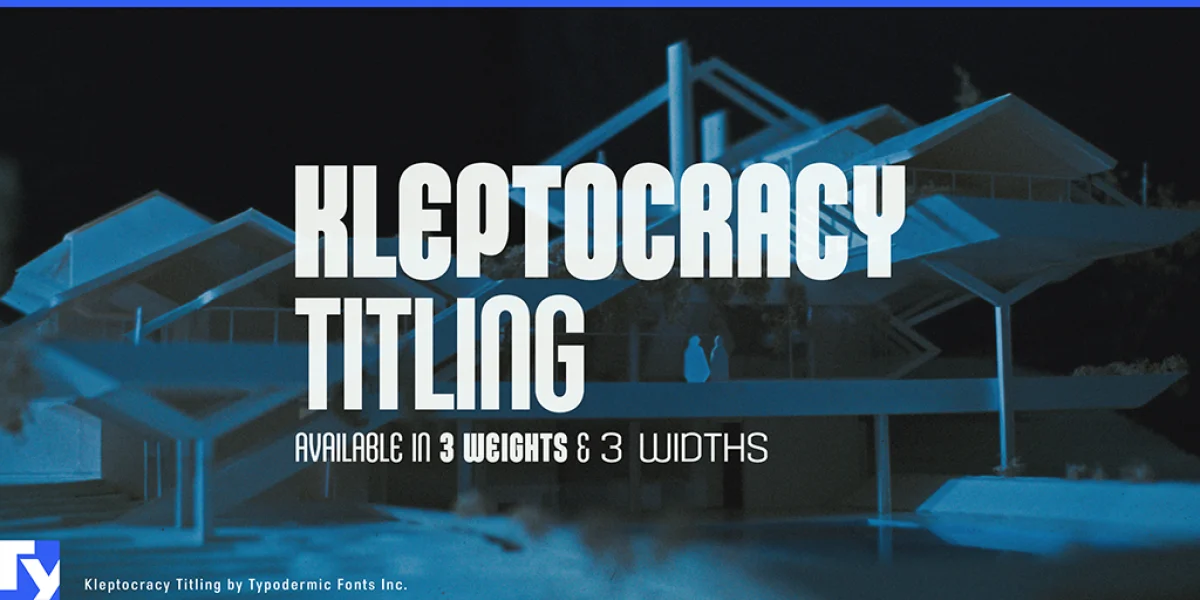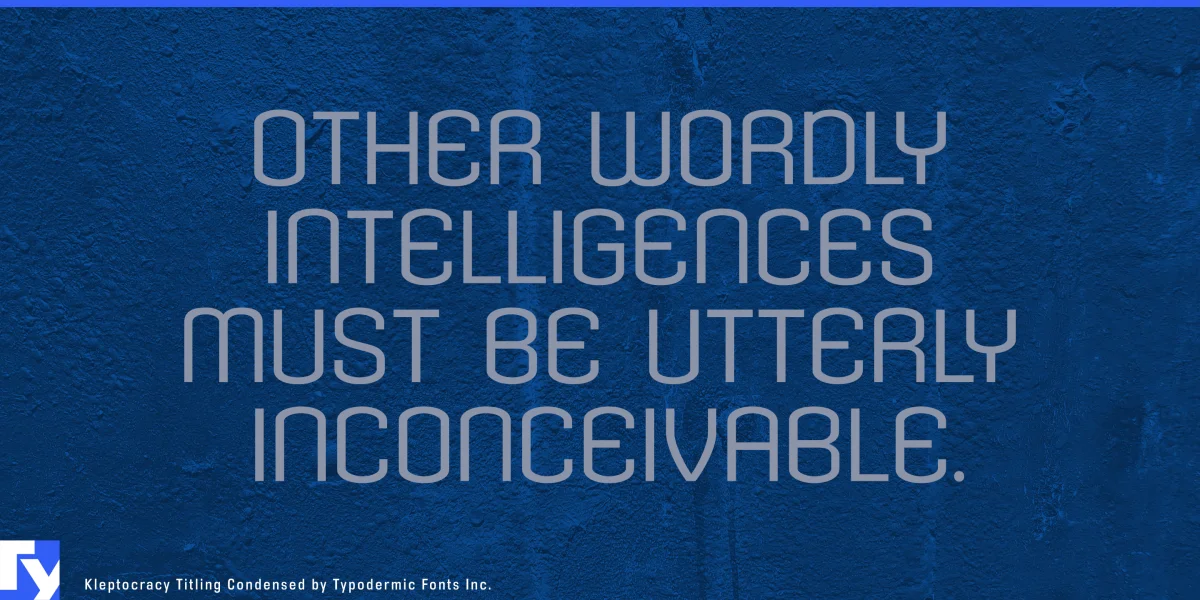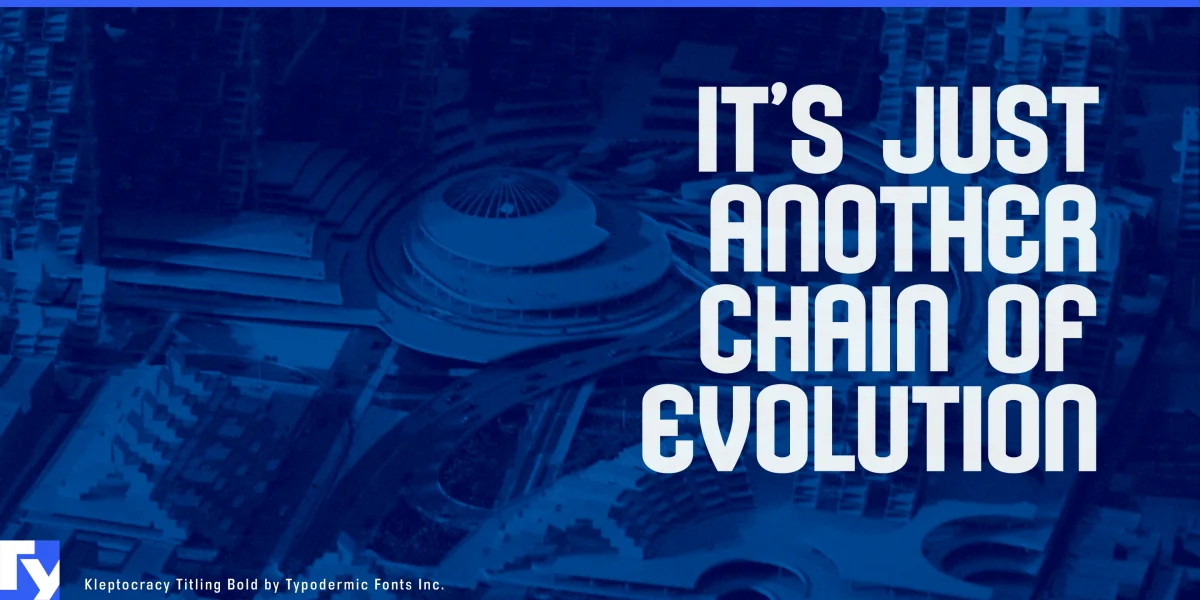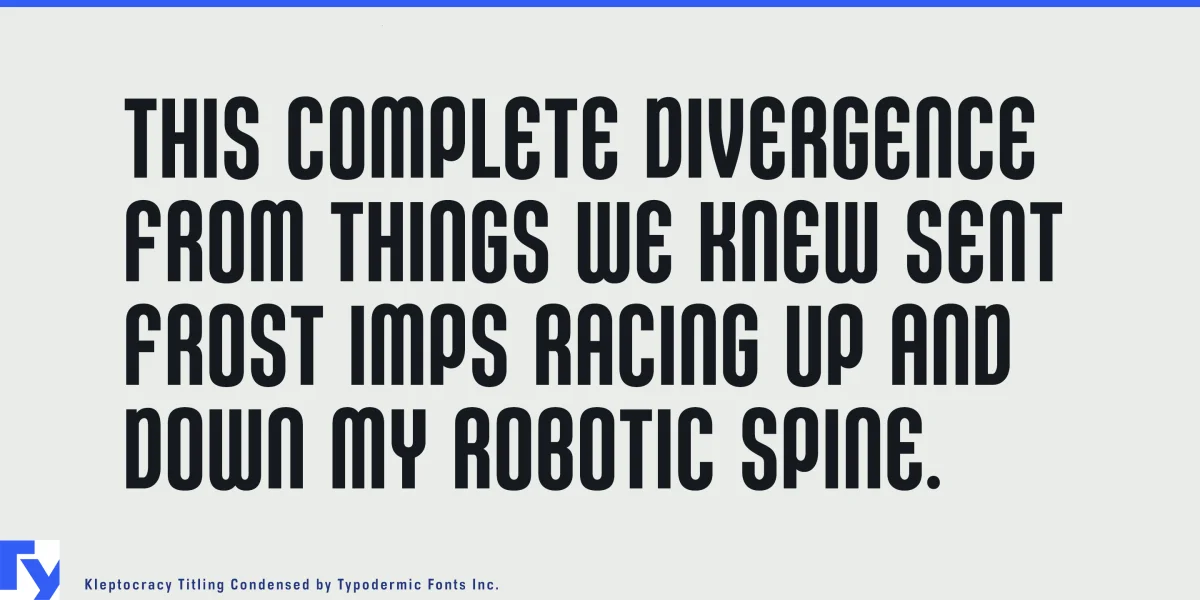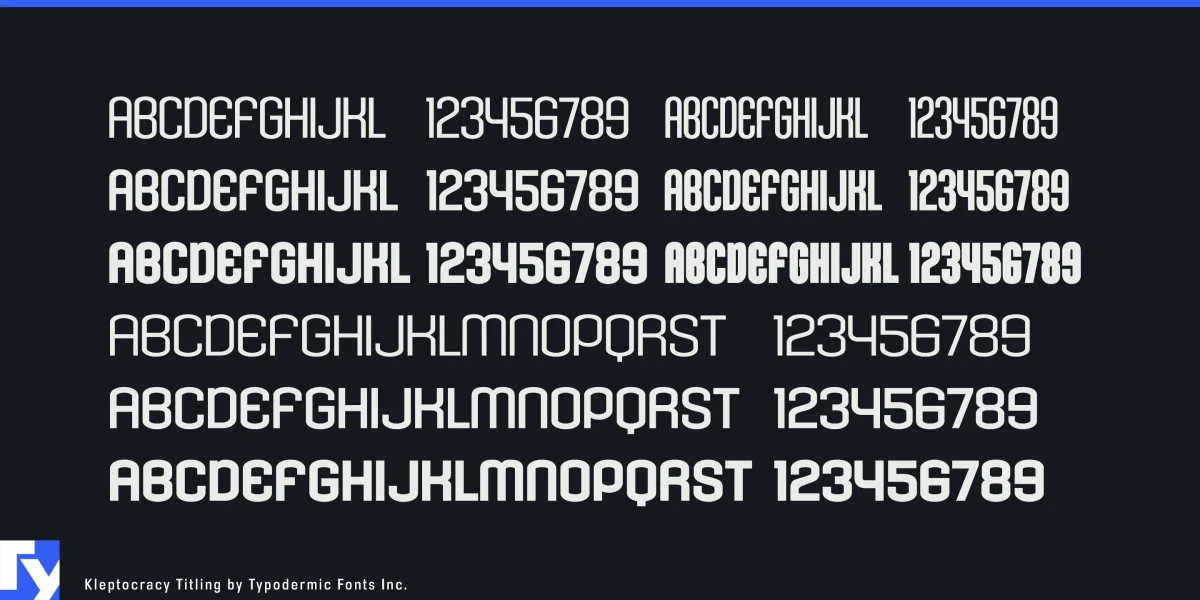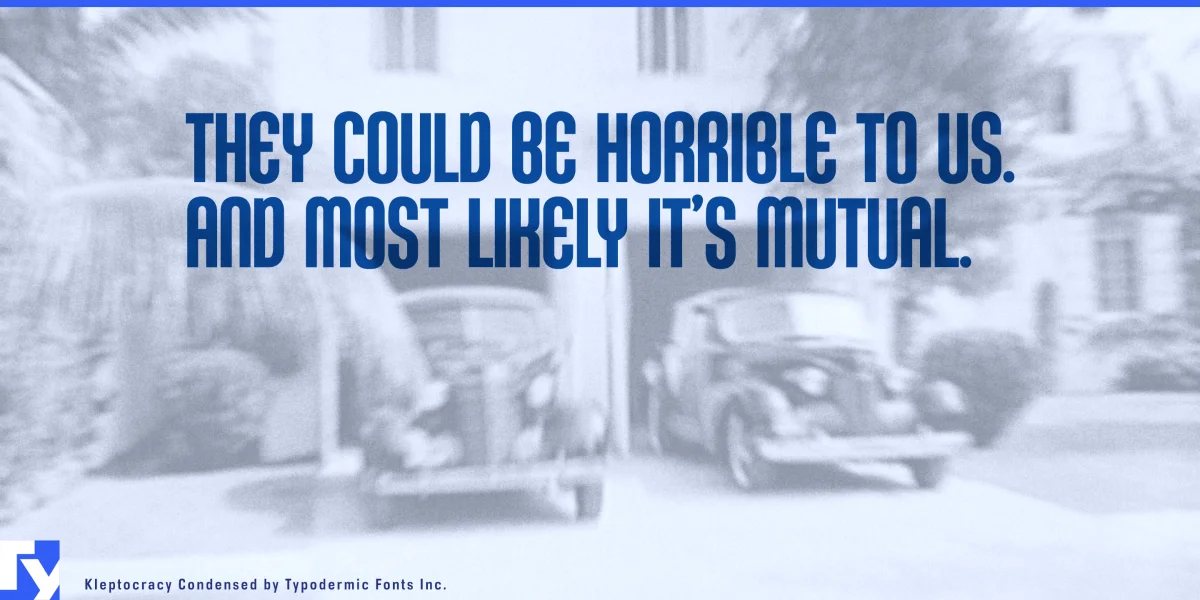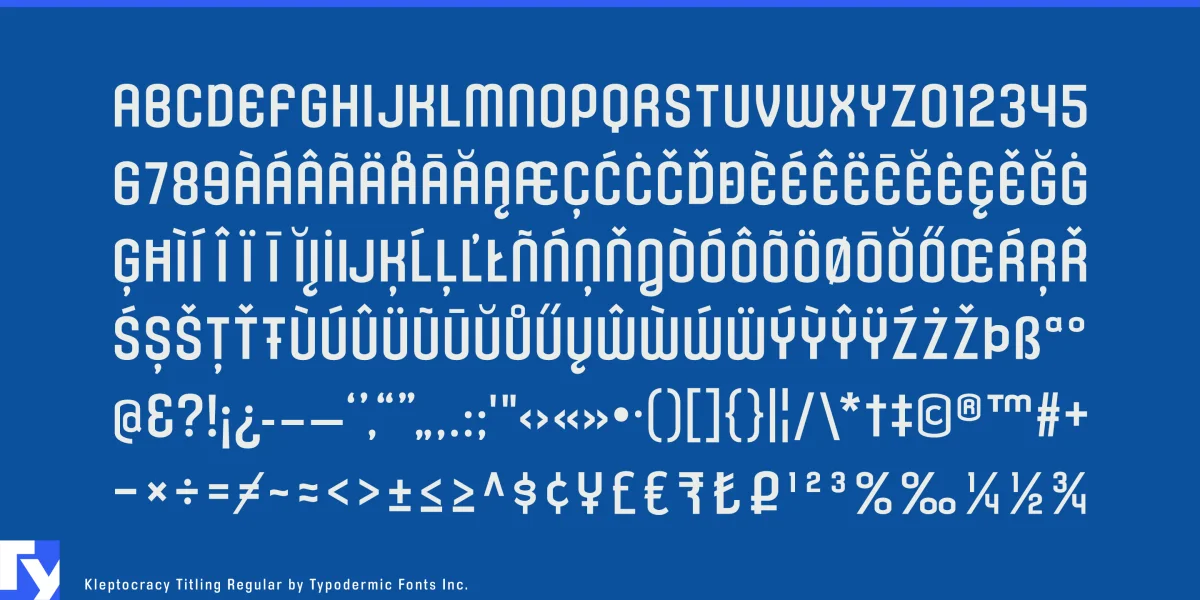
Kleptocracy purrs where other factory-made fonts rattle and buzz thanks to assembly line efficiency tempered with softly rounded curves. Kleptocracy comes in three weights and three widths. For a version with lowercase, look for the full version of Kleptocracy from Typodermic Fonts. Most Latin-based European writing systems are supported, including the following languages. Afaan Oromo, Afar, Afrikaans, Albanian, Alsatian, Aromanian, Aymara, Bashkir (Latin), Basque, Belarusian (Latin), Bemba, Bikol, Bosnian, Breton, Cape Verdean, Creole, Catalan, Cebuano, Chamorro, Chavacano, Chichewa, Crimean Tatar (Latin), Croatian, Czech, Danish, Dawan, Dholuo, Dutch, English, Estonian, Faroese, Fijian, Filipino, Finnish, French, Frisian, Friulian, Gagauz (Latin), Galician, Ganda, Genoese, German, Greenlandic, Guadeloupean Creole, Haitian Creole, Hawaiian, Hiligaynon, Hungarian, Icelandic, Ilocano, Indonesian, Irish, Italian, Jamaican, Kaqchikel, Karakalpak (Latin), Kashubian, Kikongo, Kinyarwanda, Kirundi, Kurdish (Latin), Latvian, Lithuanian, Lombard, Low Saxon, Luxembourgish, Maasai, Makhuwa, Malay, Maltese, Māori, Moldovan, Montenegrin, Ndebele, Neapolitan, Norwegian, Novial, Occitan, Ossetian (Latin), Papiamento, Piedmontese, Polish, Portuguese, Quechua, Rarotongan, Romanian, Romansh, Sami, Sango, Saramaccan, Sardinian, Scottish Gaelic, Serbian (Latin), Shona, Sicilian, Silesian, Slovak, Slovenian, Somali, Sorbian, Sotho, Spanish, Swahili, Swazi, Swedish, Tagalog, Tahitian, Tetum, Tongan, Tshiluba, Tsonga, Tswana, Tumbuka, Turkish, Turkmen (Latin), Tuvaluan, Uzbek (Latin), Venetian, Vepsian, Võro, Walloon, Waray-Waray, Wayuu, Welsh, Wolof, Xhosa, Yapese, Zapotec Zulu and Zuni.